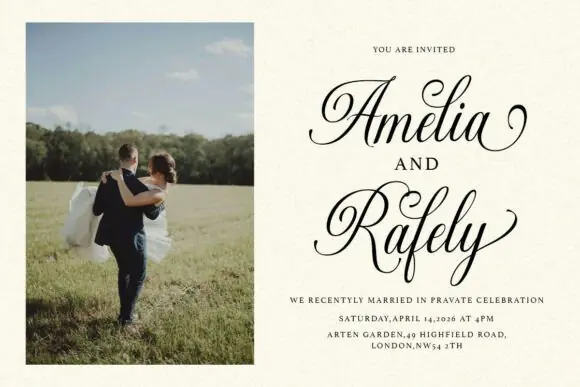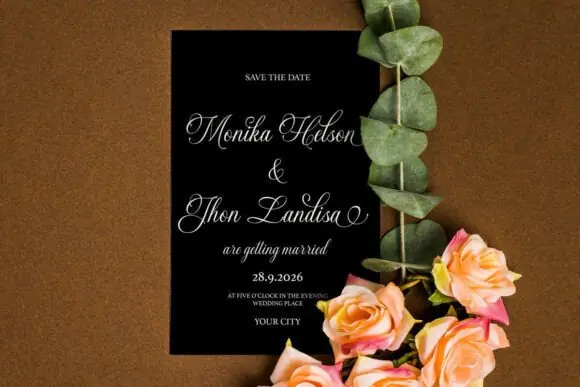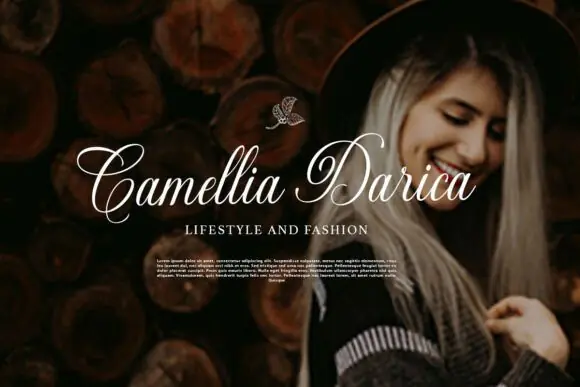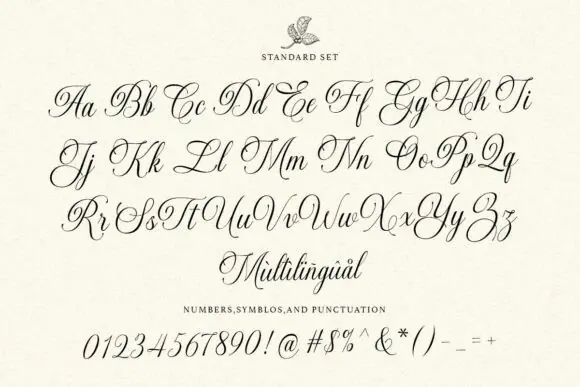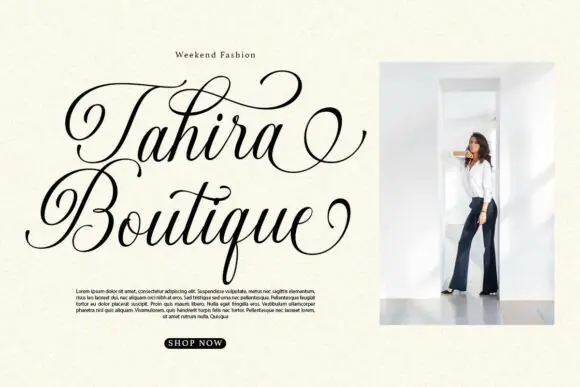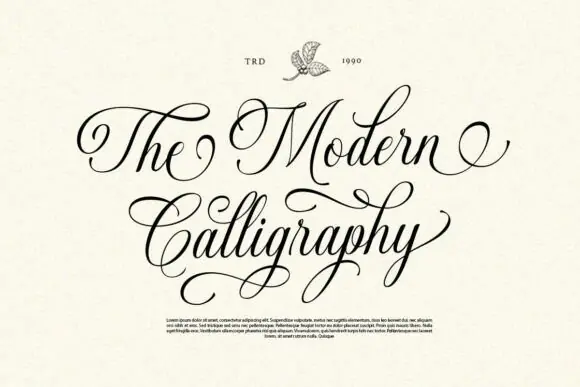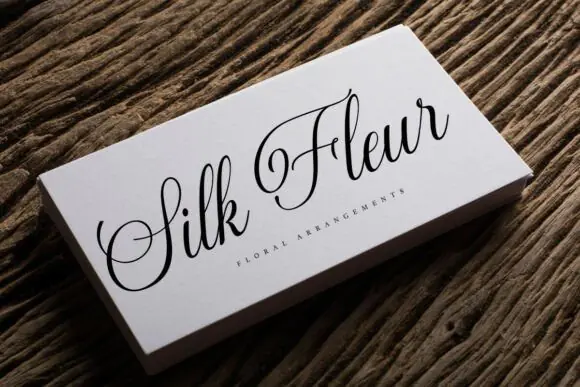
Gastonia Script Modern Calligraphy Font – Elegant Luxury Typeface for Wedding Invitations, Branding, Upscale Packaging, Editorial Designs, Logos, Romantic Quotes & Sophisticated Creative Projects
Create luxurious, romantic, and sophisticated designs with Gastonia Script Font, an elegant modern calligraphy typeface crafted with flowing strokes, graceful curves, and refined letterforms. Its timeless charm and decorative flair make it perfect for creative projects that need a premium handwritten look with class and elegance.
Gastonia Script Font works beautifully for wedding invitations, bridal stationery, save-the-date cards, branding, logos, upscale packaging, product labels, editorial layouts, magazine titles, greeting cards, romantic quotes, boutique designs, beauty branding, social media graphics, and elegant promotional materials. Its smooth calligraphy style adds warmth, refinement, and a high-end visual appeal to both digital and printed designs.
Whether you are designing luxury packaging, romantic wedding stationery, classy brand identities, stylish editorial graphics, or sophisticated quote artwork, Gastonia Script Font helps your text look polished, memorable, and beautifully expressive. It is especially useful for designers, wedding creators, branding specialists, boutique owners, print-on-demand sellers, and digital product creators looking for a refined calligraphy font with a romantic and professional finish.
Wedding invitations, save-the-date cards, bridal stationery, branding, logos, upscale packaging, product labels, editorial designs, magazine layouts, greeting cards, romantic quotes, boutique branding, beauty designs, social media posts, printable wall art, and luxury marketing materials.
Key Features
• Elegant modern calligraphy font style
• Flowing strokes and graceful curves
• Refined letterforms with a luxurious feel
• Romantic, classy, and sophisticated appearance
• Perfect for weddings, branding, and packaging
• Great for editorial and upscale creative designs
• Adds timeless charm and decorative beauty to projects